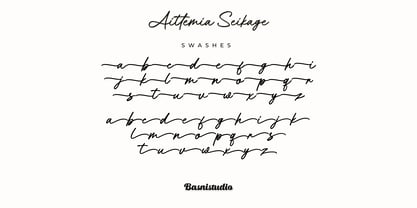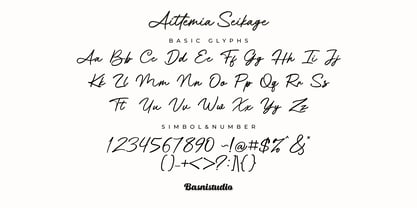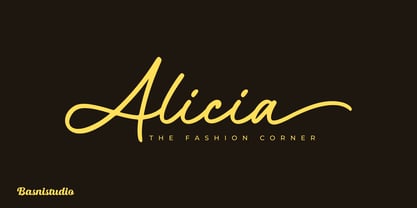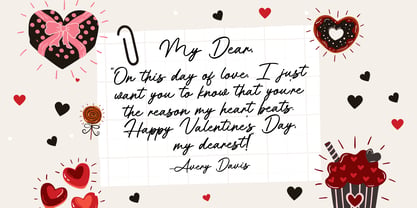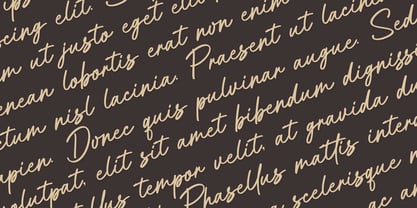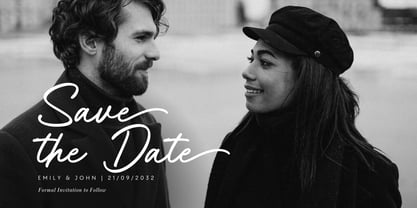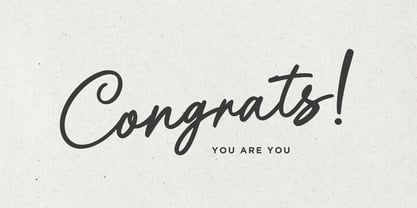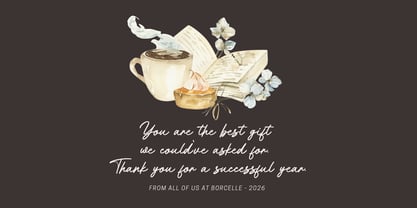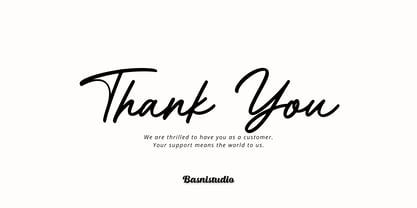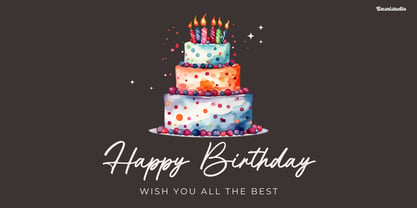
Aittemia Seikage
by Basnistudio
The Aittemia Seikage Font Family was designed by Bery Arisandi and published by Basnistudio. Aittemia Seikage contains 1 styles. More about this family
The Perfect Handwritten Touch for Your Designs Introducing Aittemia Seikage a Handwritten Font that adds a Natural and Versatile touch to everything from branding and social media to invitations and packaging. Elegant & Versatile – Perfect for logos, quotes, greeting cards, and more Authentic Handwritten Feel – Created with real pen strokes for a natural look Easy to Use – Works seamlessly with all major design programs Whether you’re building a powerful brand identity or crafting a standout logo, Aittemia Seikage a Handwritten Font gives you the creative edge you need. What’s Included: Uppercase & lowercase letters Ligature Numbers & punctuation Swashes Multilingual Support Thank You Very Much
Designers: Bery Arisandi
Foundry: Basnistudio